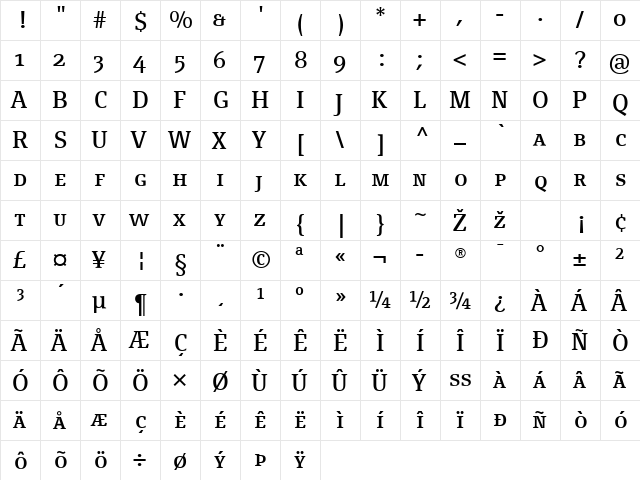
PageSerif-RegularSC Regular
| Foundry | Albert Boton, published by FontShop International for the FontFont Library |
| Designer | Albert Boton |
Design Context for PageSerif-RegularSC Typeface
PageSerif-RegularSC carries the refined structure of traditional serif typography, with bracketed terminals and considered proportions that communicate credibility and craft.